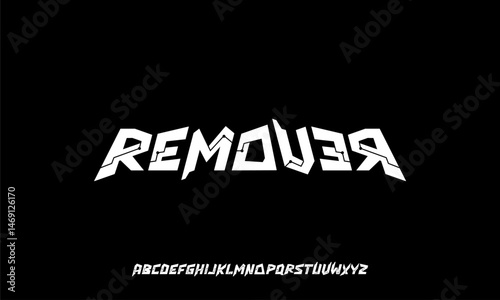
Remover Font is a striking, sharp-edged typeface that combines boldness with a futuristic vibe. Perfect for attention-grabbing designs in gaming, sports, and modern tech branding.